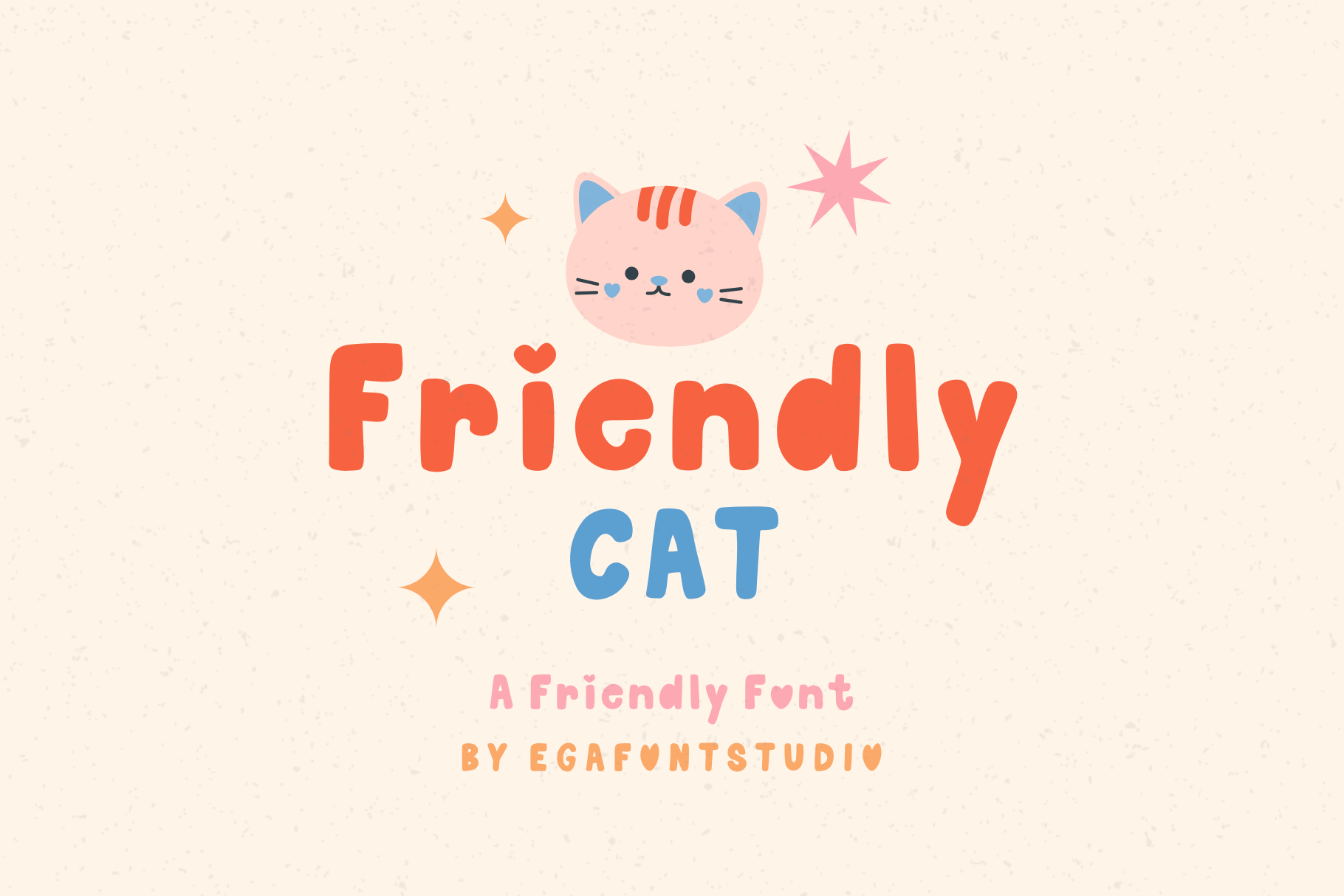
Friendly Cat | Handwritten Font
Friendly Cat will be perfect for greeting cards, posters, quotes, baby clothing, picture books or anything that requires a fun and happiness look!